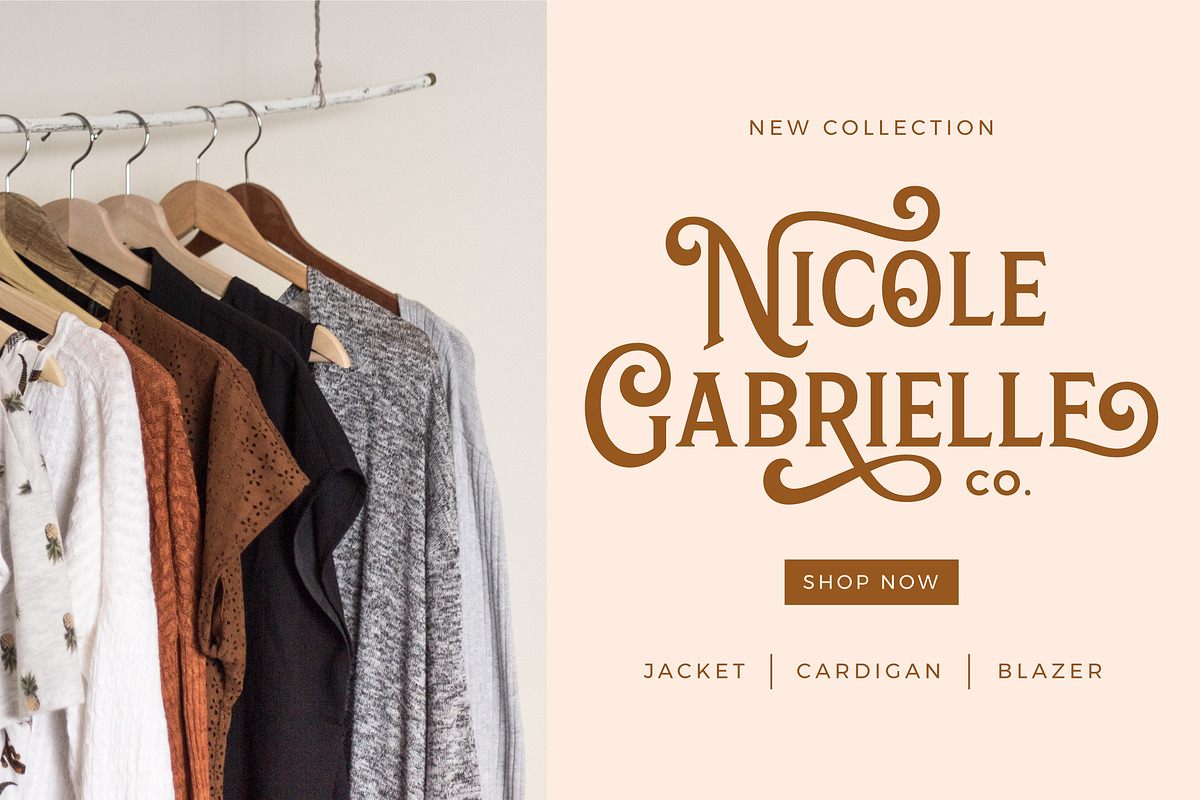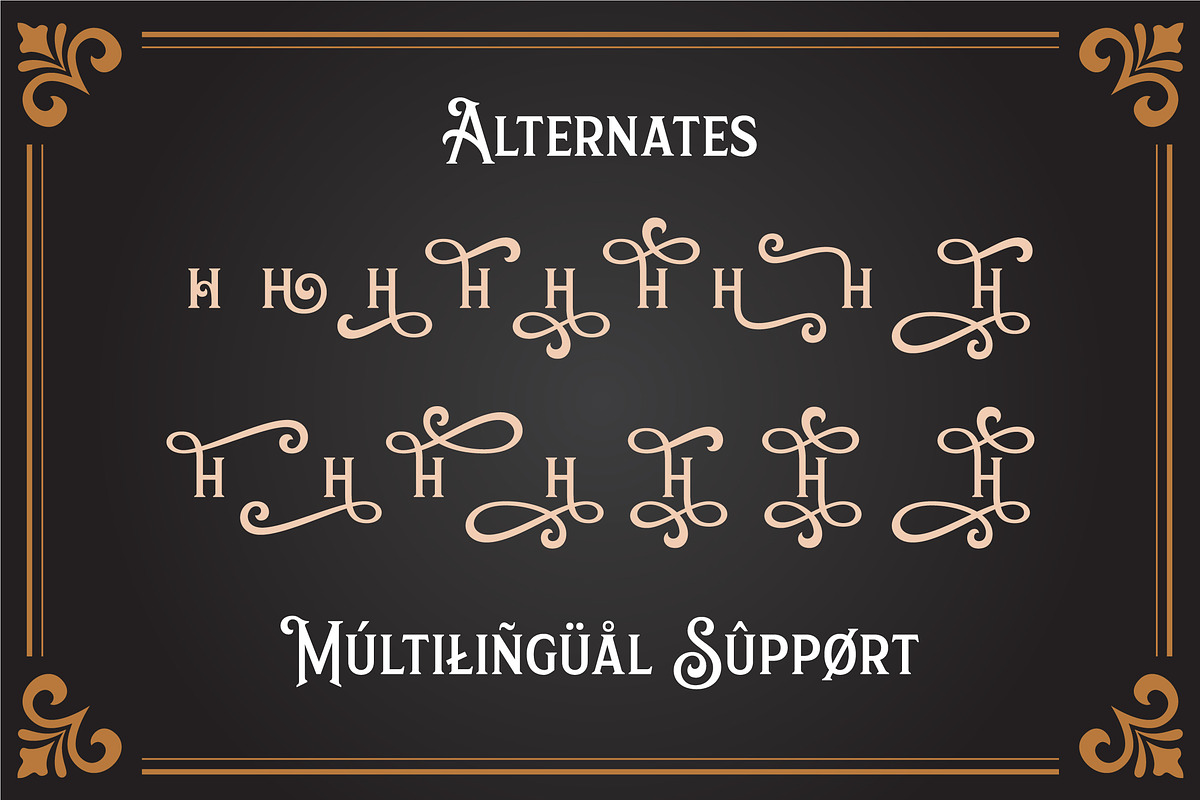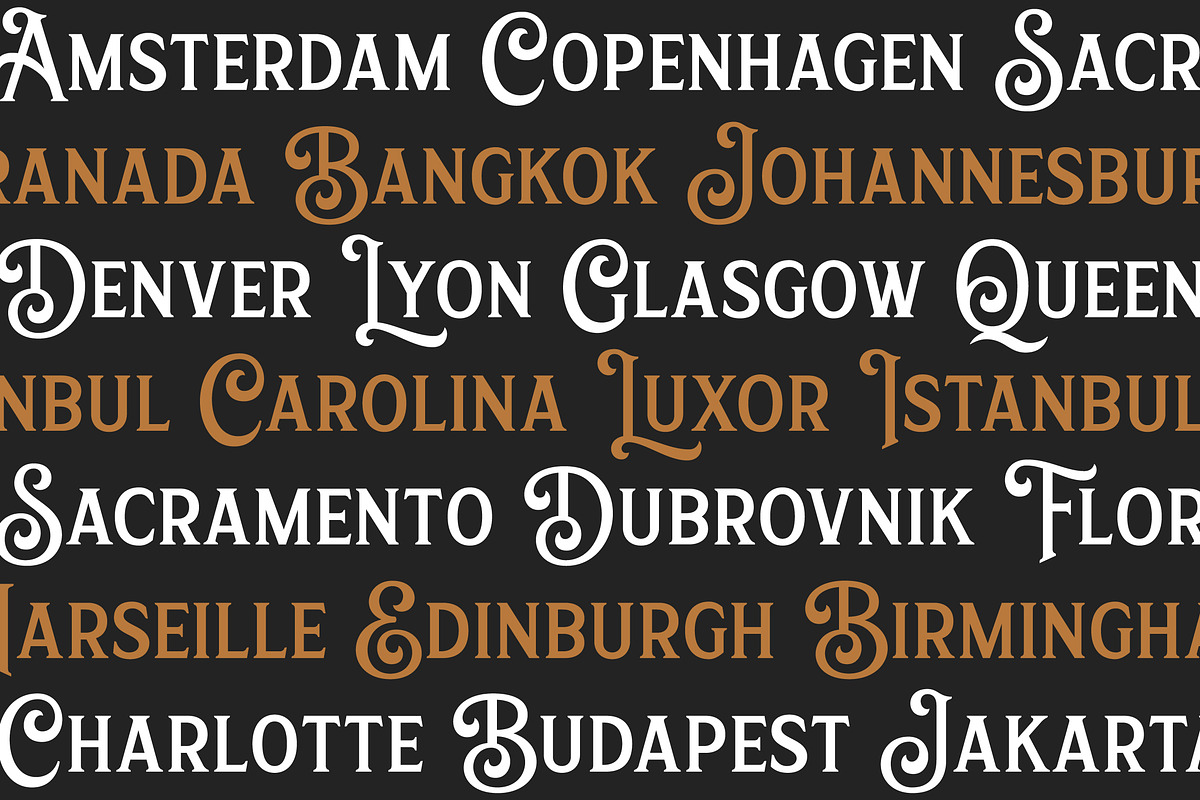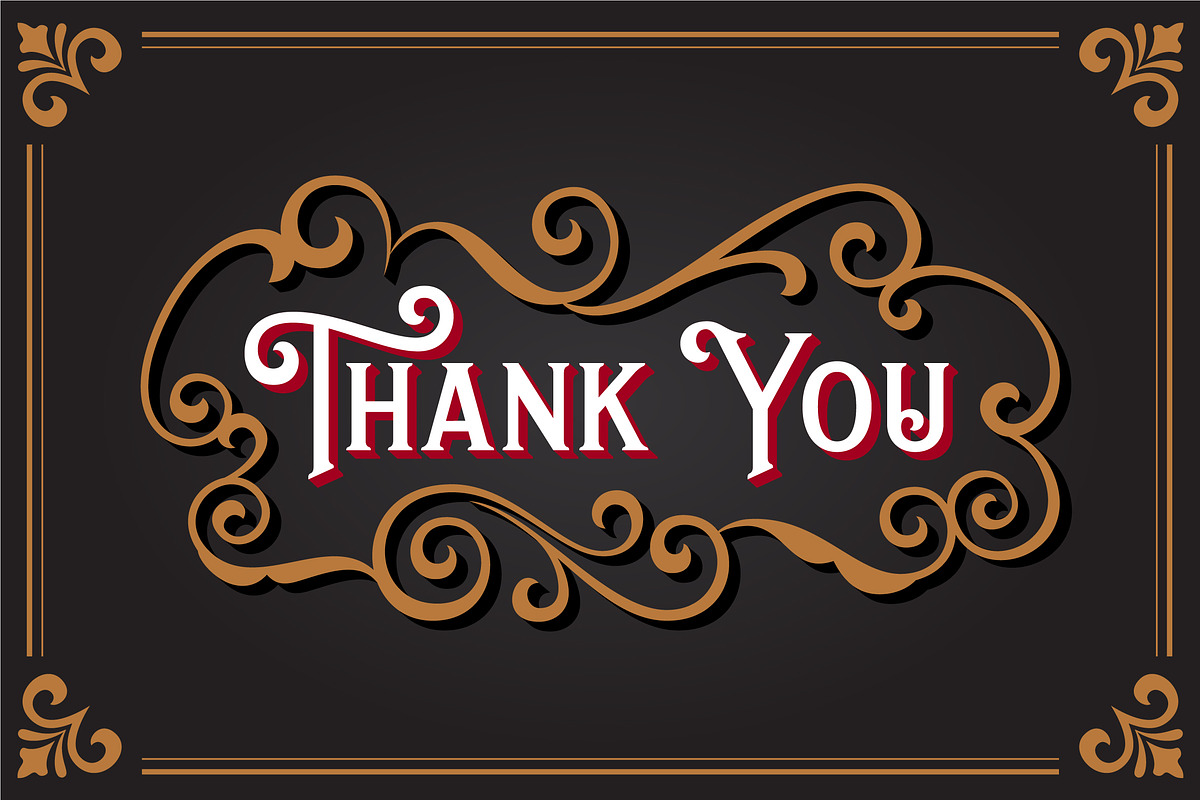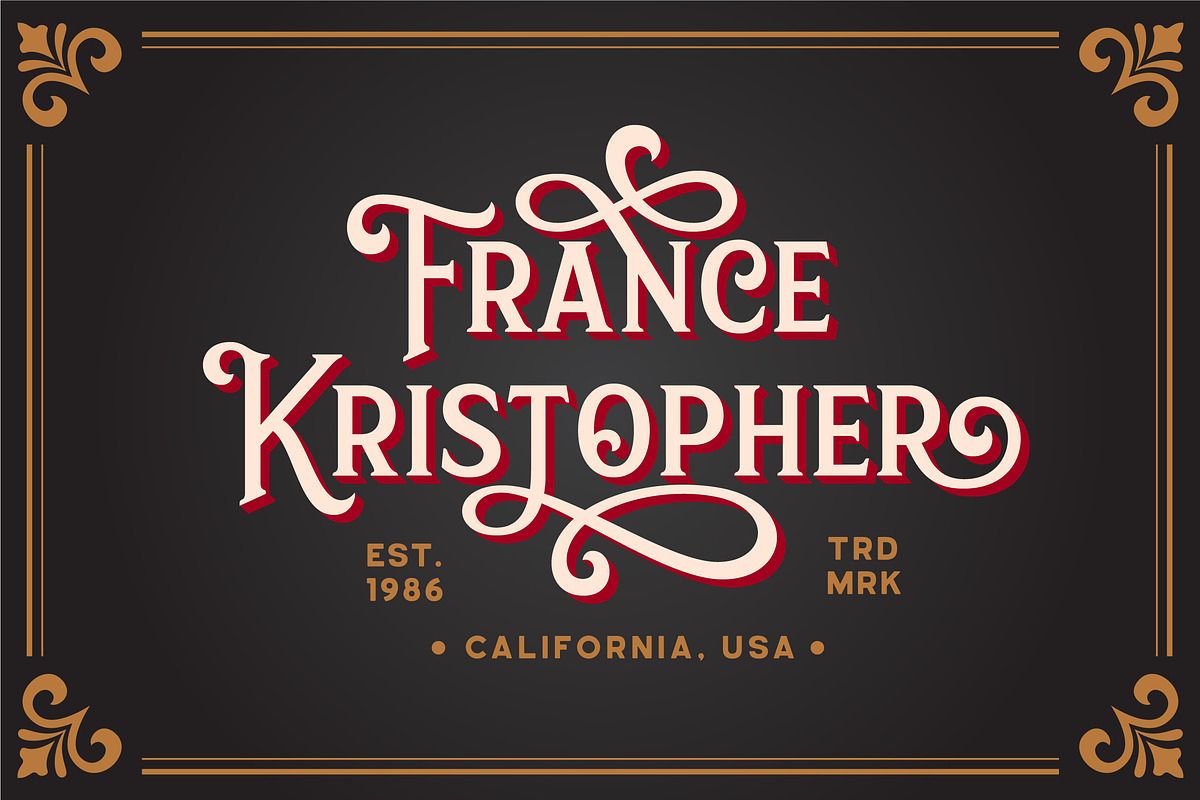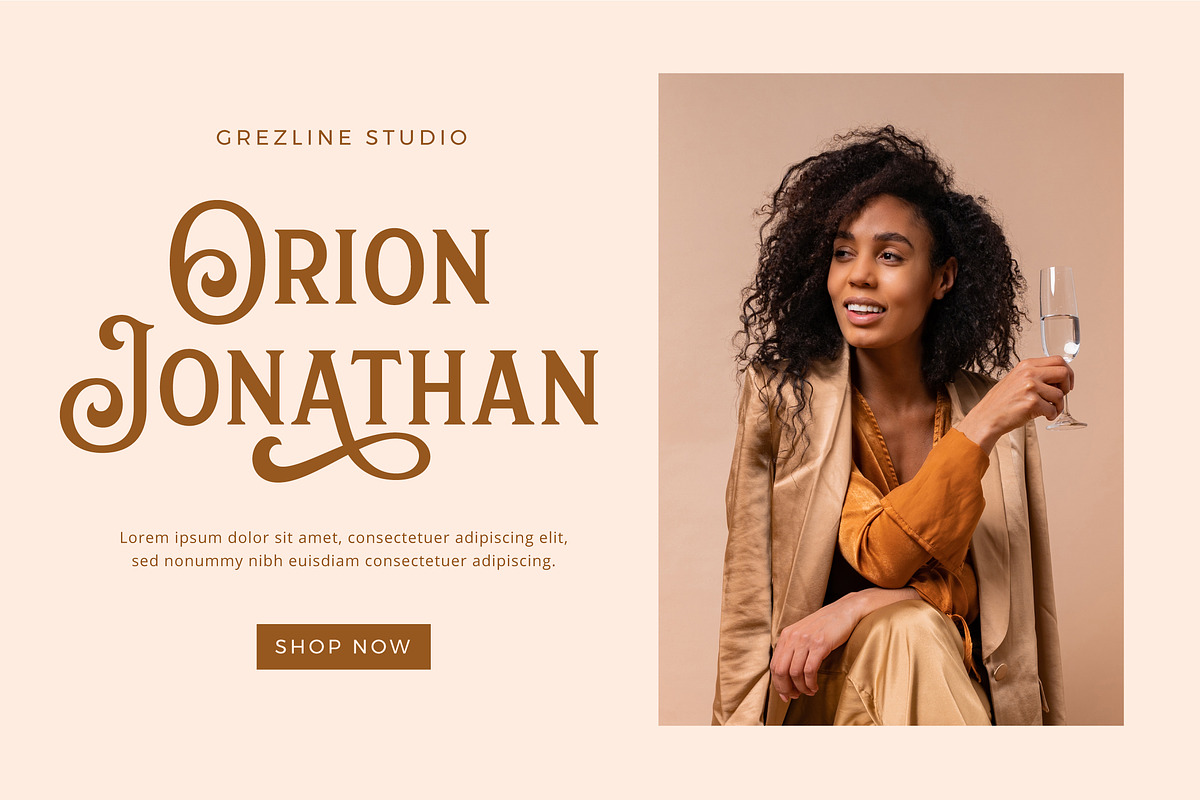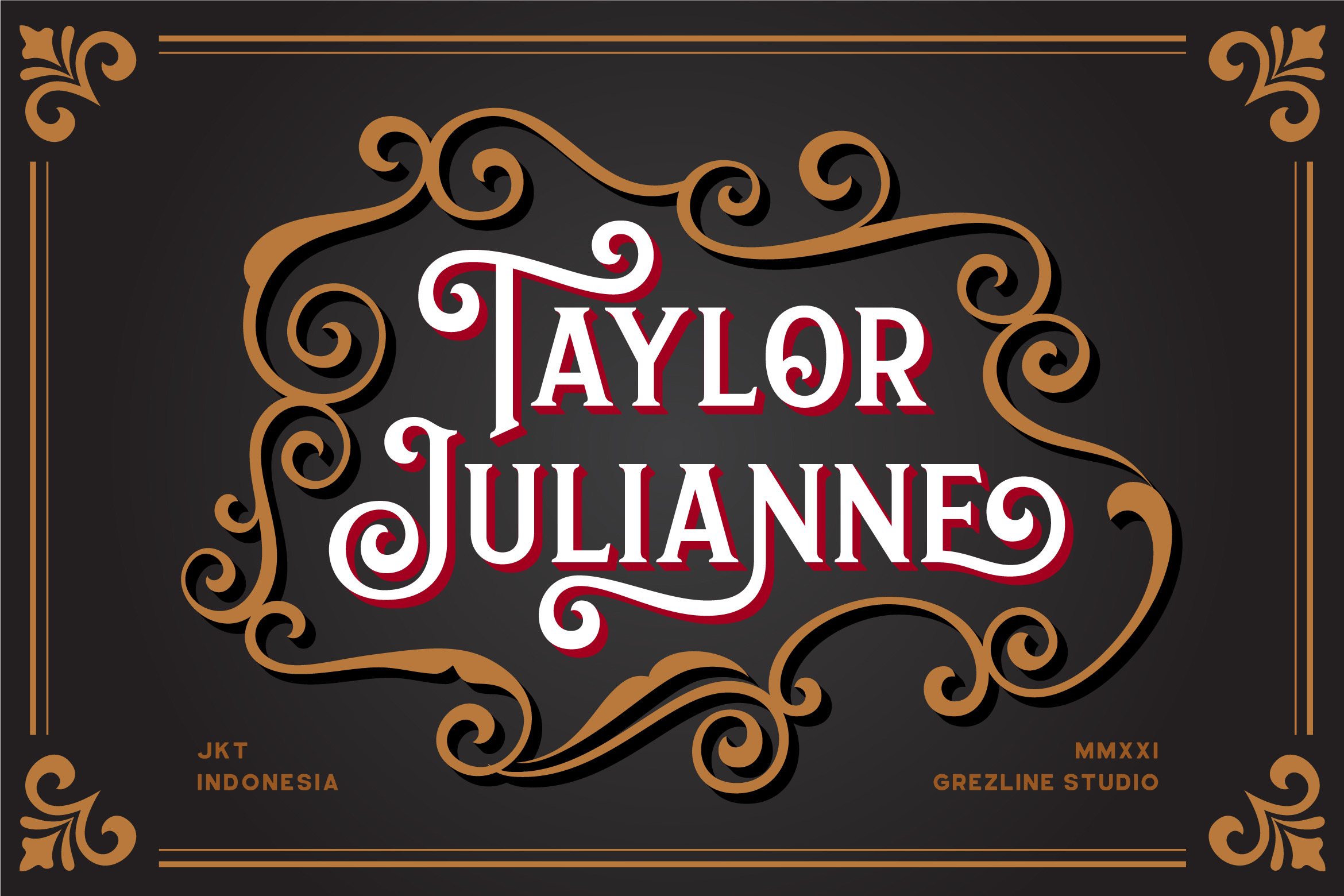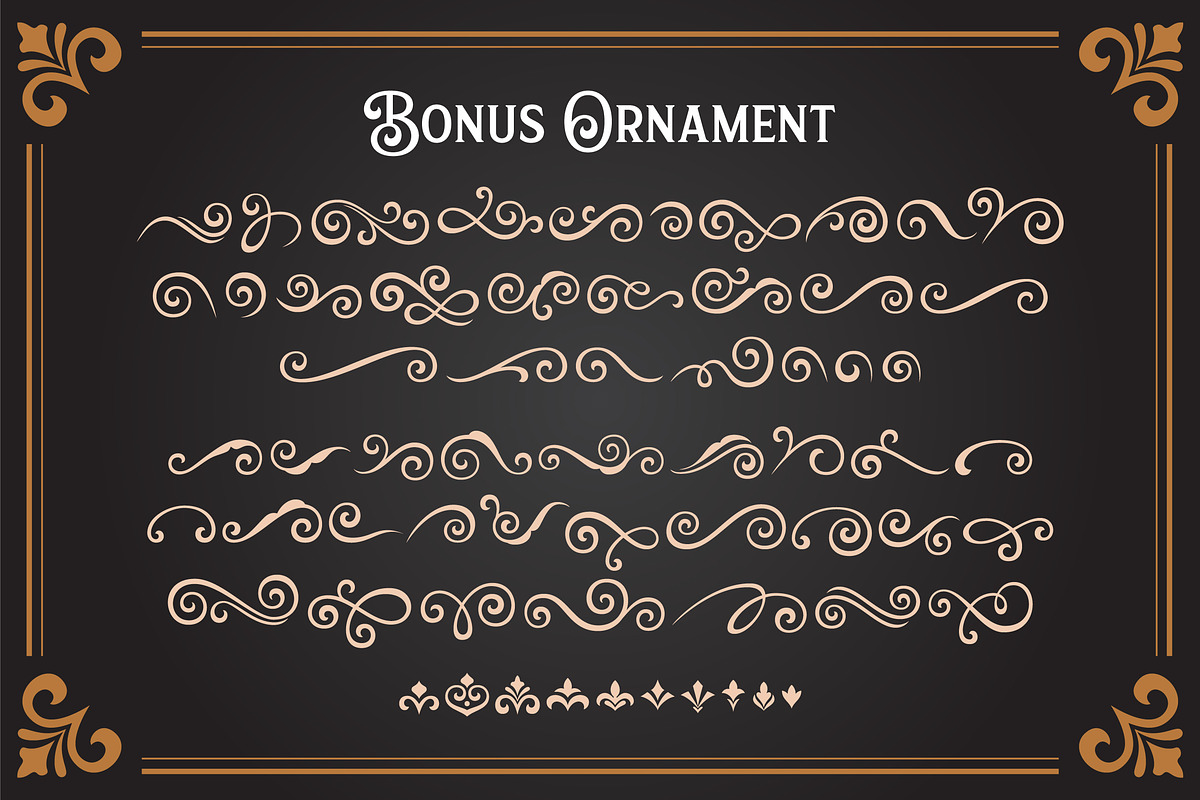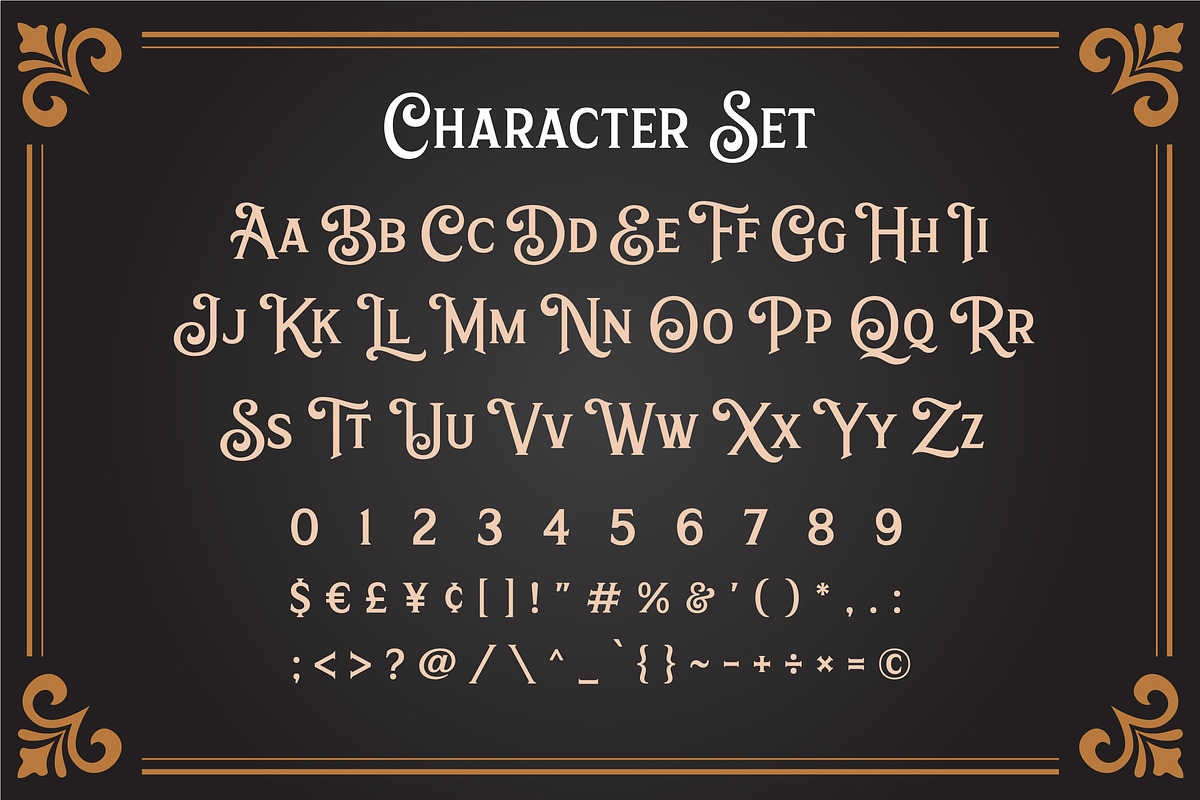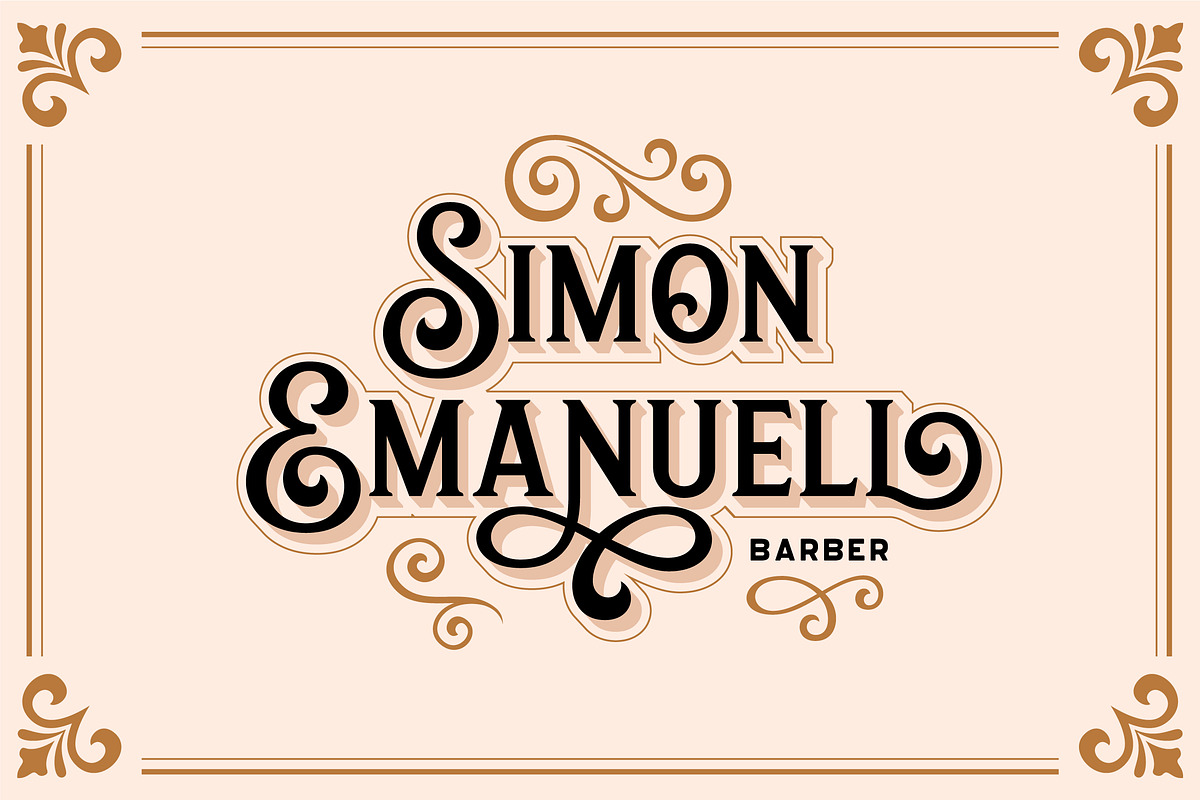
Taylor Julianne - Vintage Font
Taylor Julianne is a bold display font with vintage charm. This font was created to give your headlines and logotype projects a strong and confident touch. Taylor Julianne font is also usable in a wide range of works such as logos, covers, posters, quotes, product packaging, merchandise, social media and much more!
- Accompanied by aesthetic ornaments
- Multilingual Language